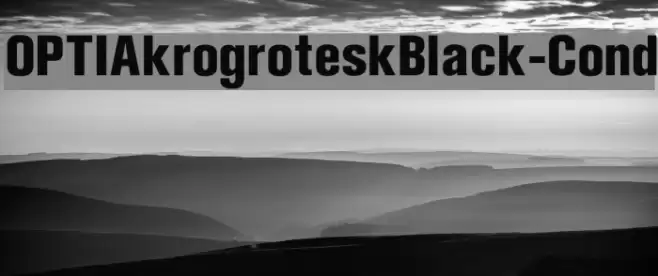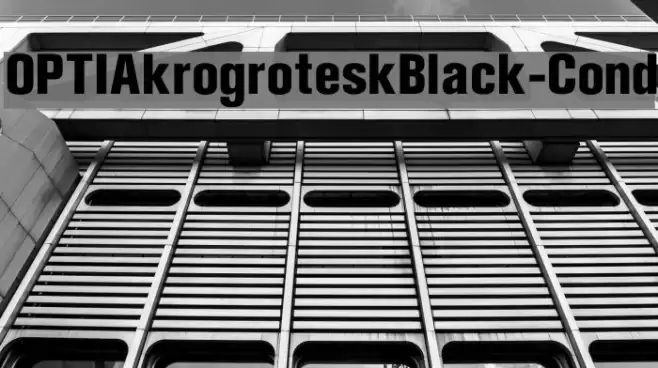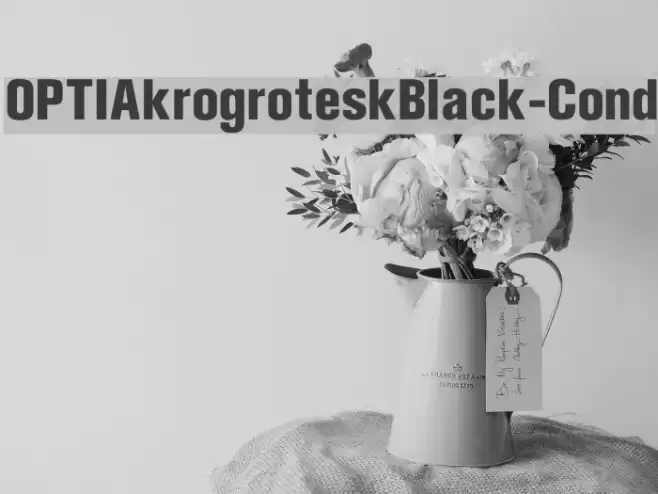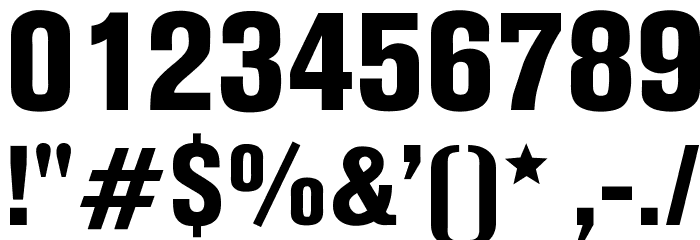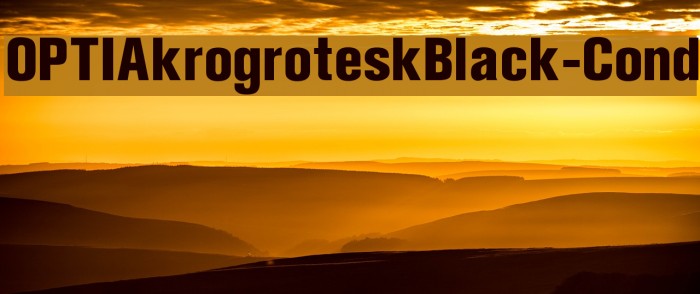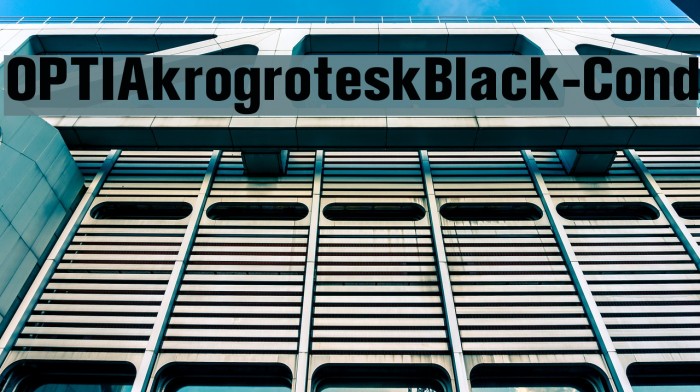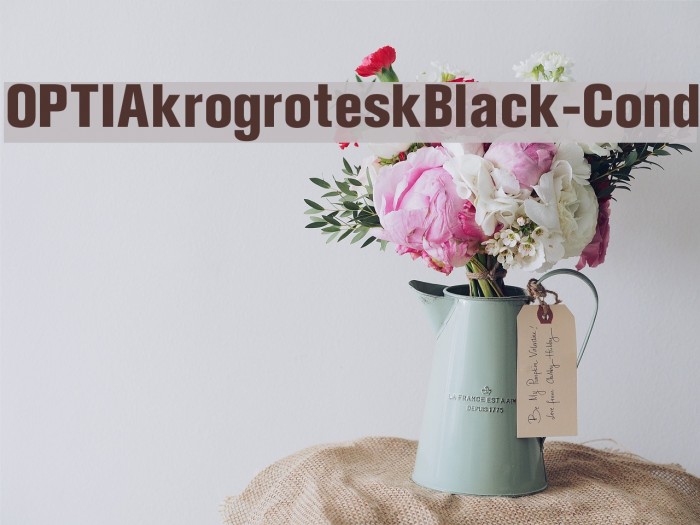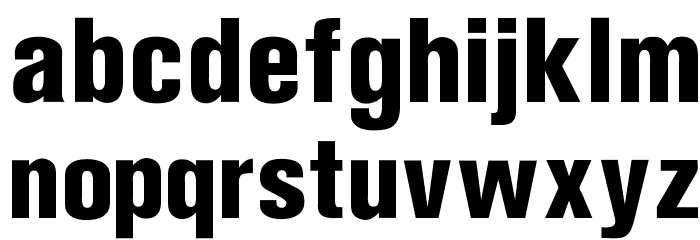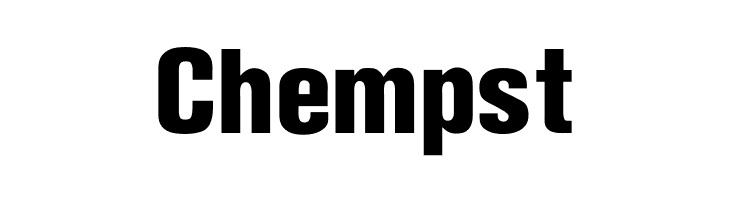
OPTIAkrogroteskBlack-Cond Font
OPTIAkrogroteskBlack-Cond Description
This font exhibits a bold and assertive presence with its thick, uniform strokes and strong geometric shapes. The uppercase letters are particularly striking, featuring a robust and commanding style that demands attention. The lowercase letters maintain the same boldness, ensuring consistency across text. The numerals are clear and easily distinguishable, making them suitable for various applications. Special characters are well-defined, adding to the font's versatility. Overall, the font's design is modern and impactful, ideal for making a strong visual statement.
A bold, modern font with strong geometric shapes and uniform strokes from Uncategorized fonts.
- Proposed Projects: Ideal for headlines, posters, branding, and any project requiring a strong visual impact.